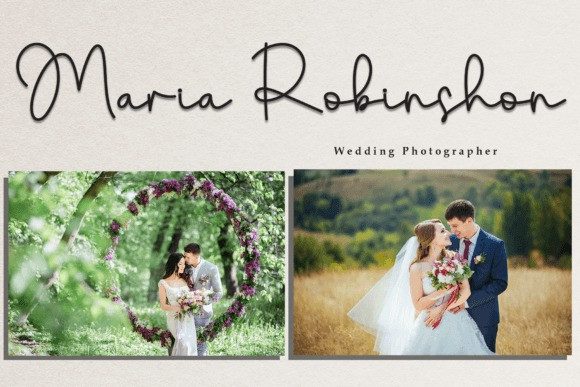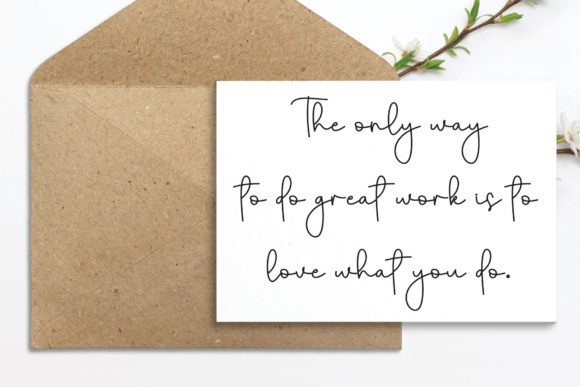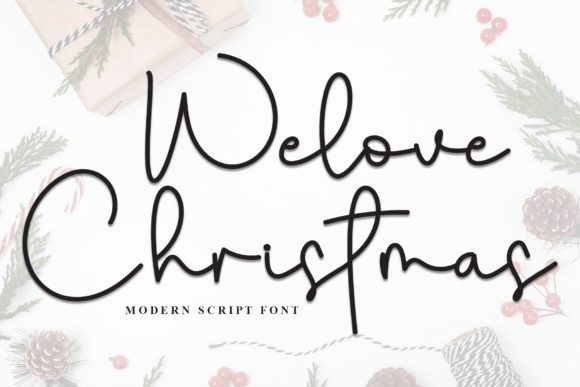
Welove Christmas Script Font
Welove Christmas Script Font is a charming handwritten script font with a festive, joyful style. Perfect for creating warm, holiday-themed designs, it features smooth, flowing letters that capture the spirit of Christmas.